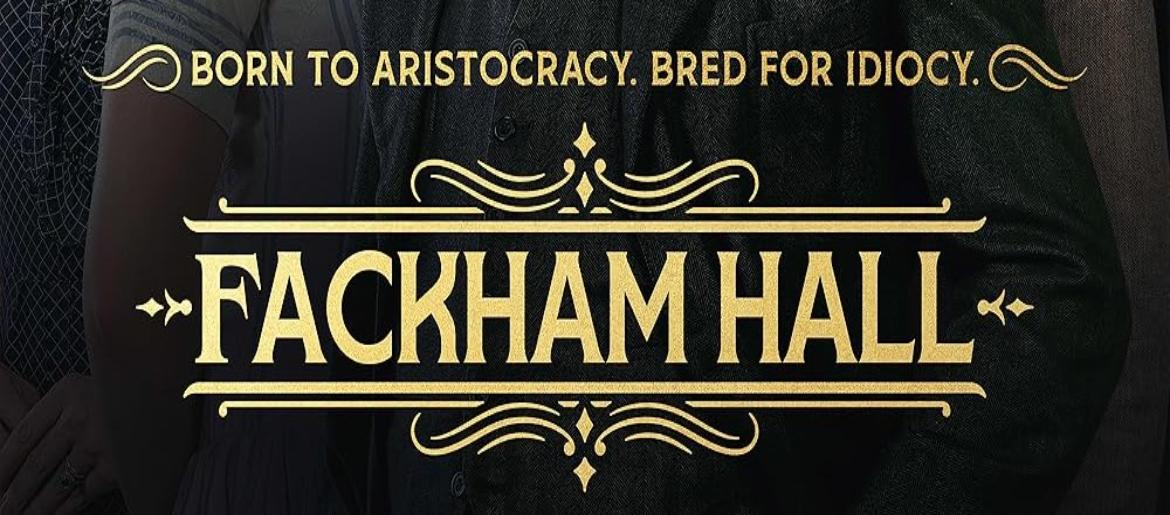
The Fackham Hall Font
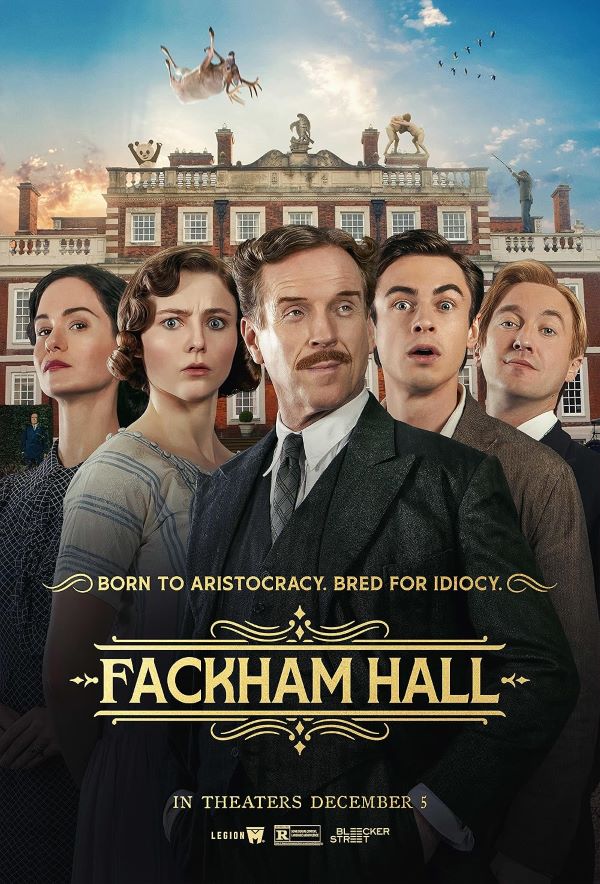
The Fackham Hall Font used in the movie’s title design is most likely Storica Extra Bold, a typeface created by Arkitype. Storica is a serif display font known for its bold structure, sharp terminals, and classic editorial styling, giving the title a refined, historical, and cinematic visual identity. The heavy weight and distinctive serif details make it particularly suitable for dramatic film titles and period-inspired branding. In the logo, most characters closely match Storica Extra Bold, although the letter “F” appears to be customized to better fit the design. Storica is a commercial font, and licensing options can be explored through official font marketplaces.
About Fackham Hall
Fackham Hall is a film that blends period storytelling with dark humor and dramatic elements. Set around the mysterious estate of Fackham Hall, the narrative follows characters navigating secrets, social tensions, and unexpected events. The film’s stylized typography reinforces its classic yet bold presentation, helping establish a memorable visual identity across posters and promotional materials.